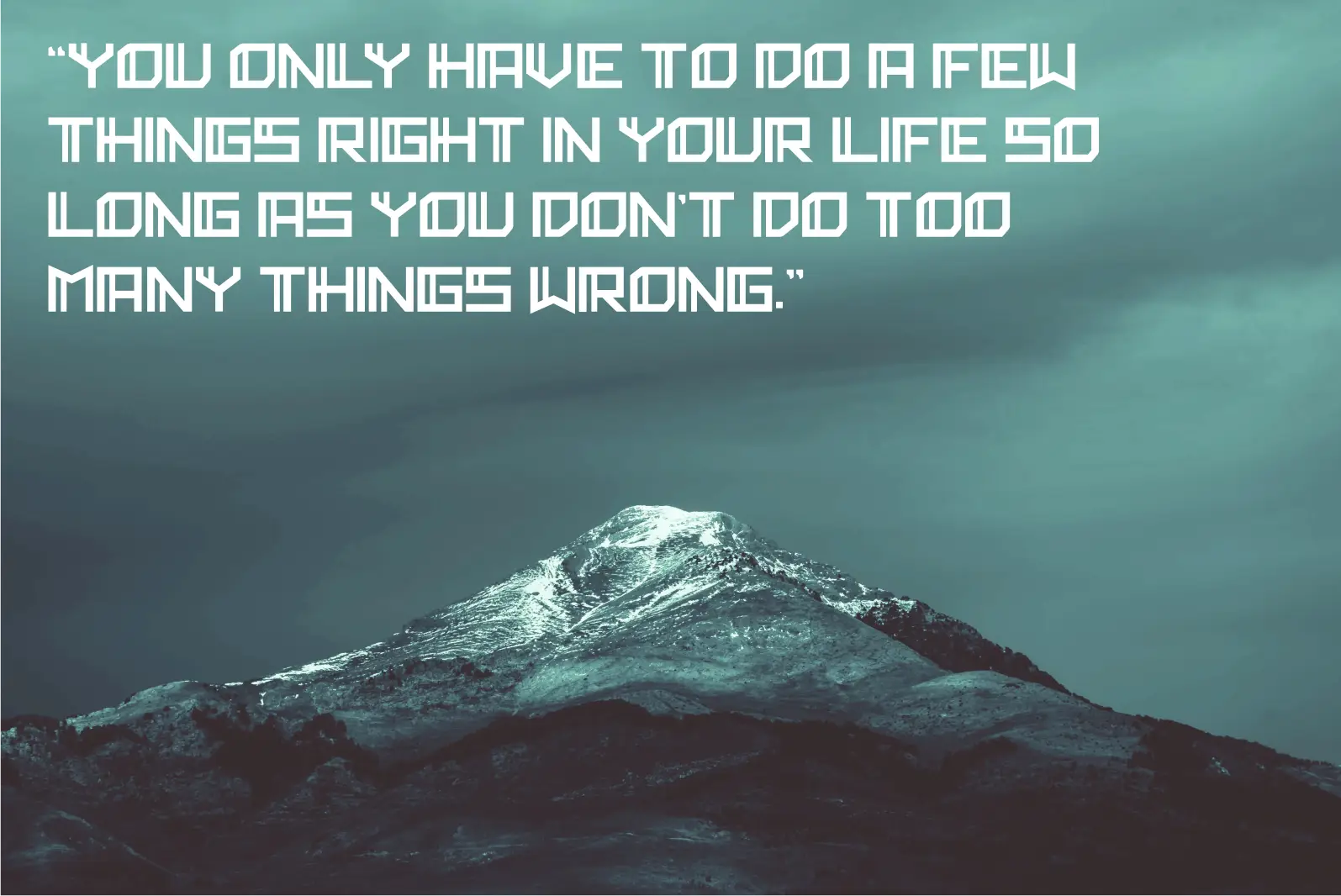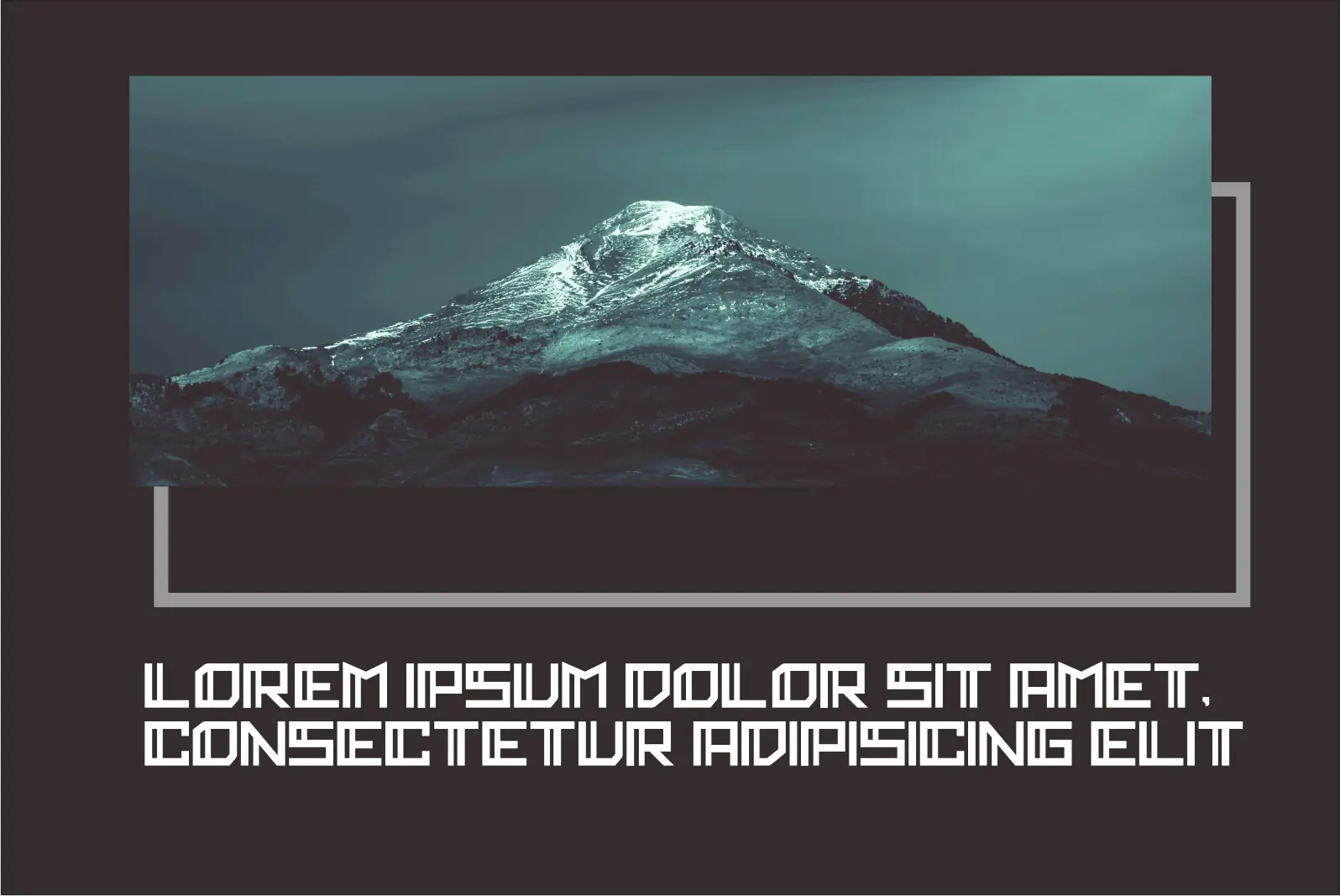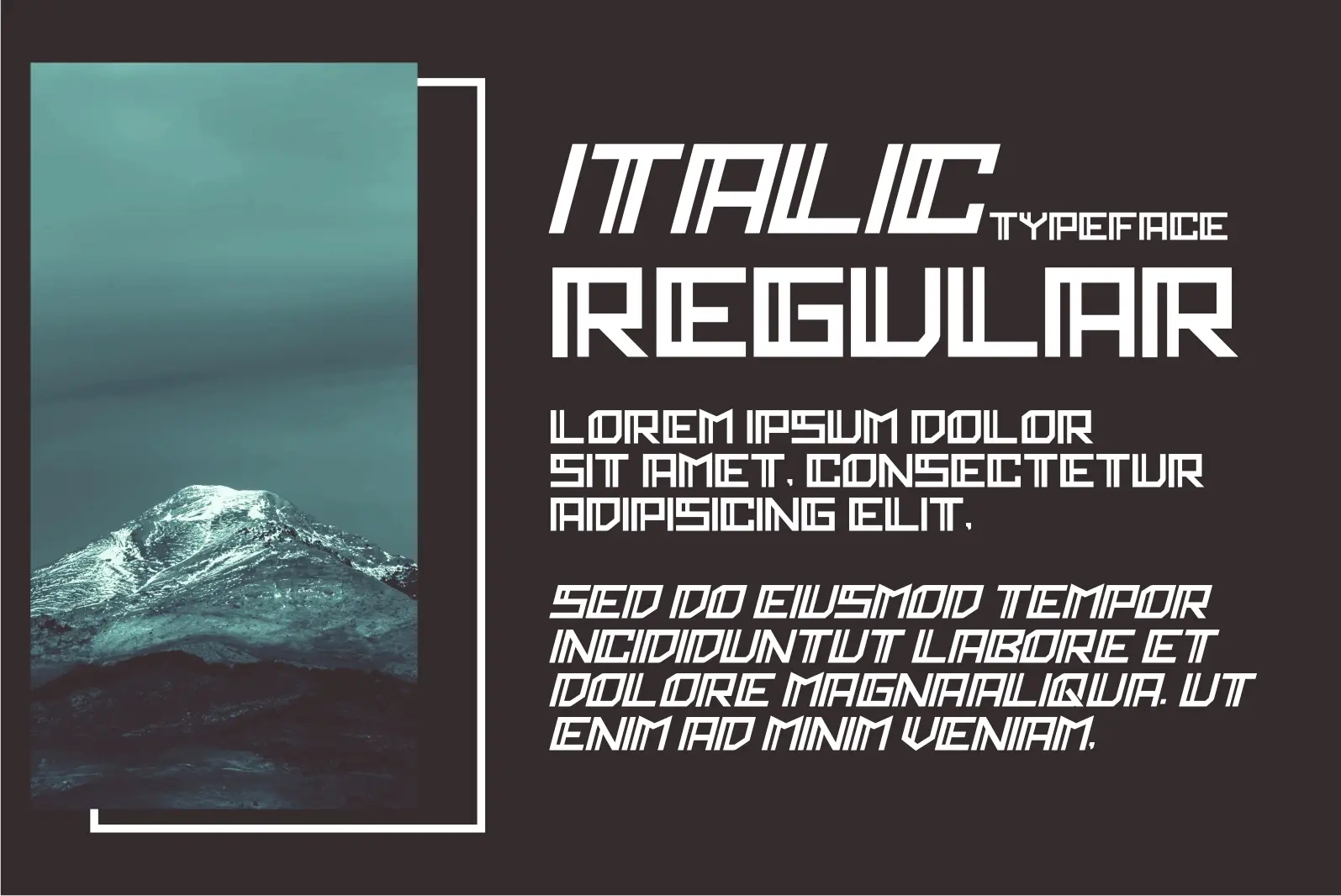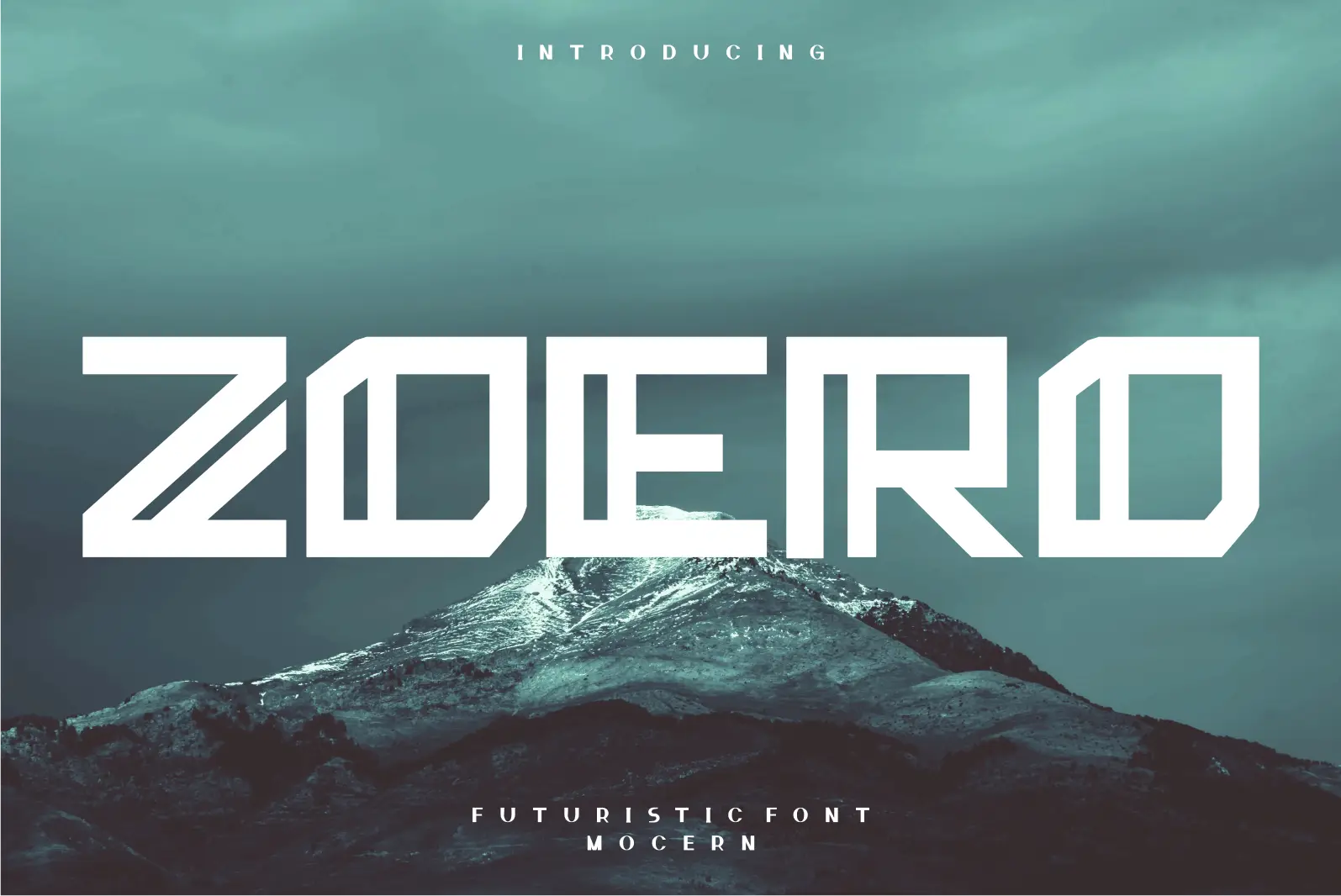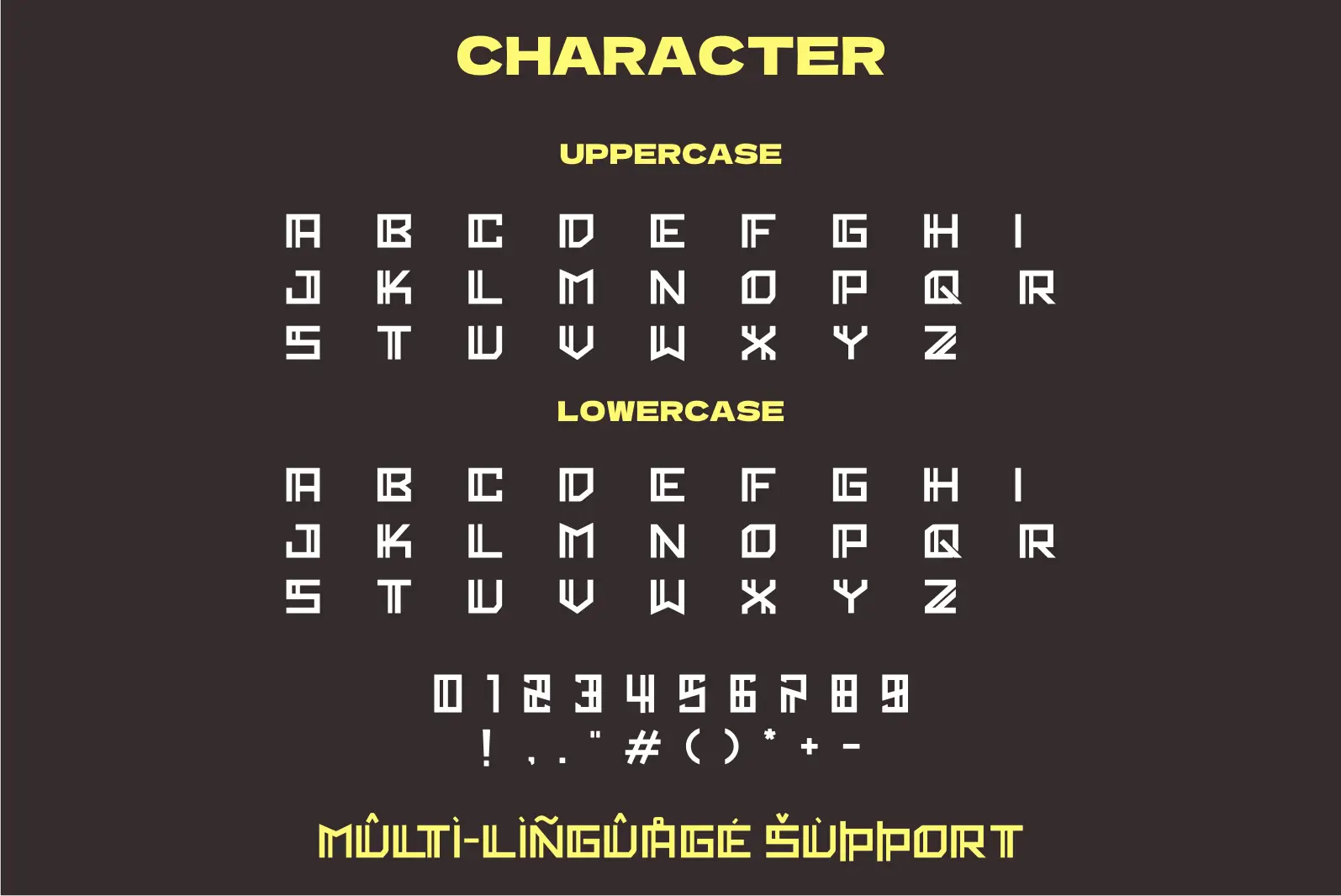
Zoero Display Font
The Zoero Display Font is a striking typeface designed to capture attention and convey a sense of modern elegance. With its unique character shapes and bold presence, this font is perfect for a variety of creative projects.
• Style: Display
• Ideal for branding, logos, and headlines
• Great for web and print applications
• Use in user interfaces for a stylish touch